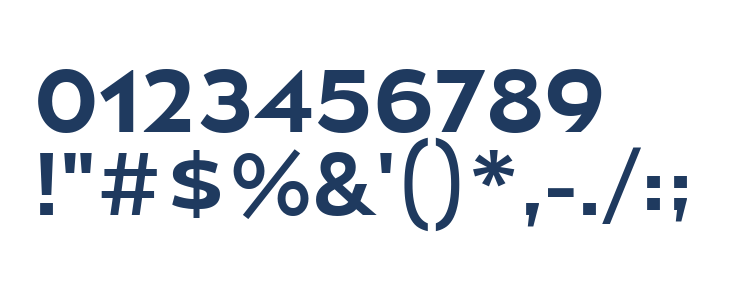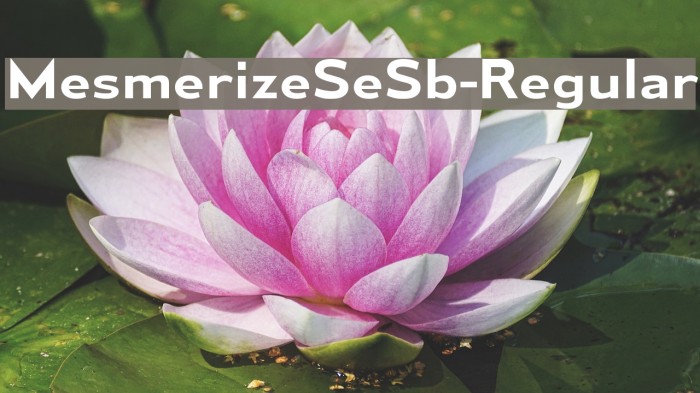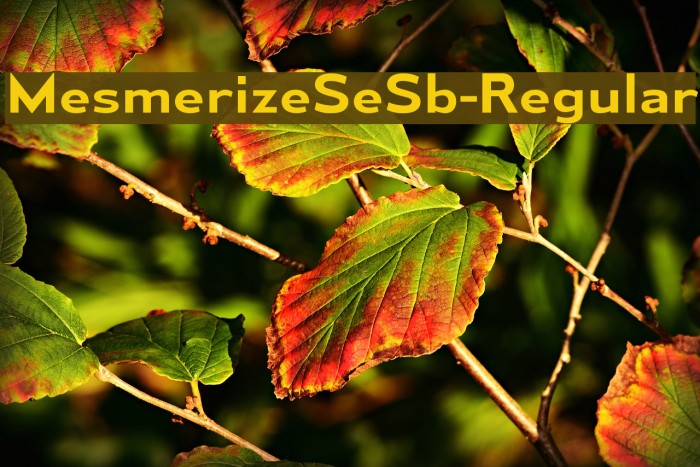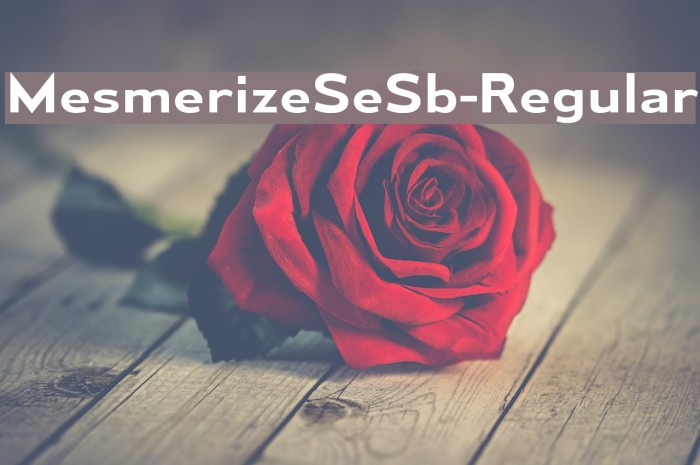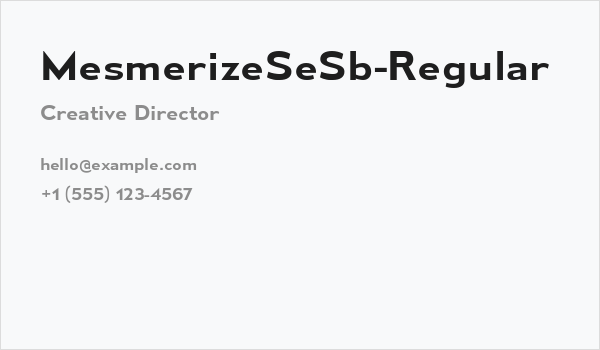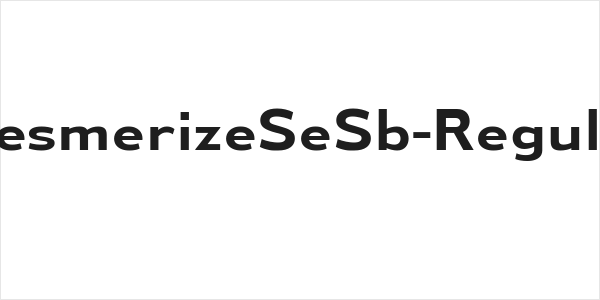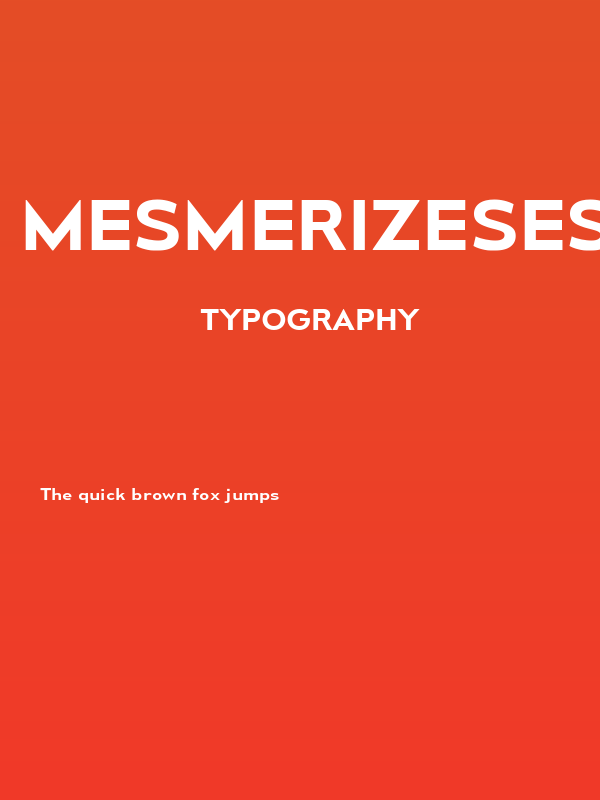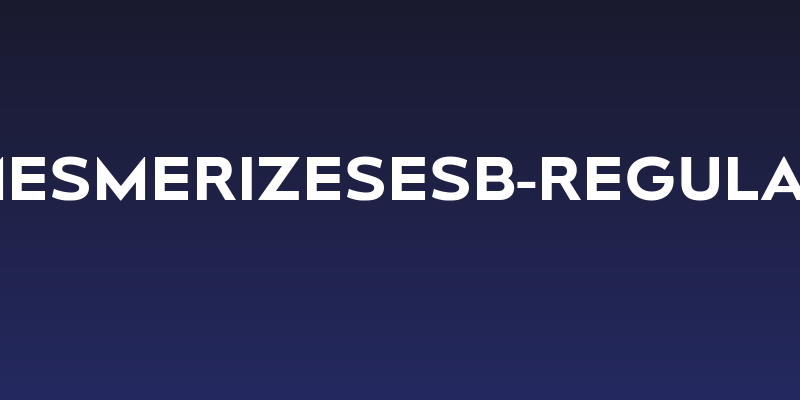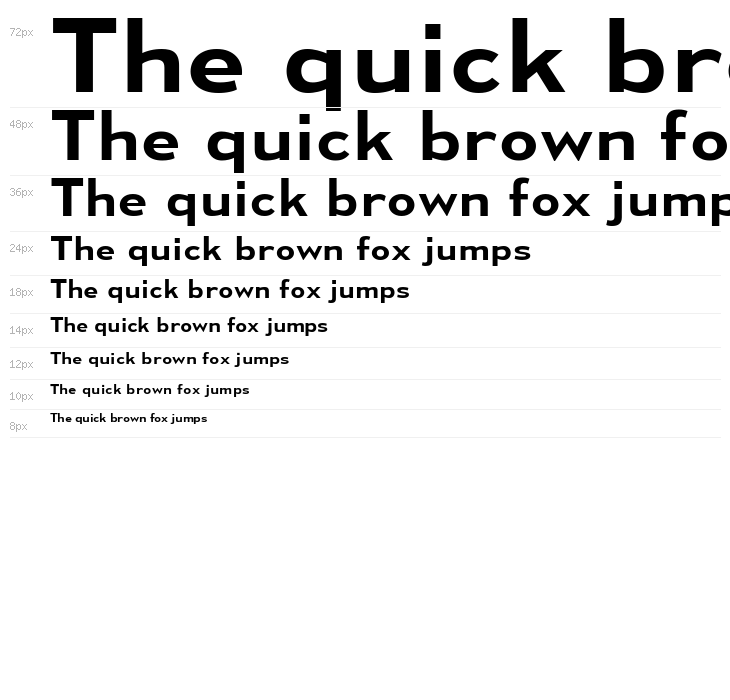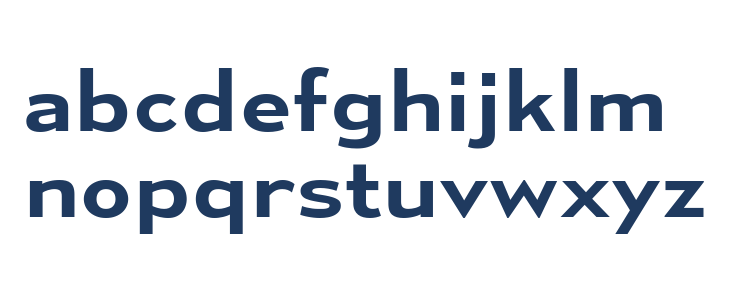
MesmerizeSeSb-Regular Font
MesmerizeSeSb-Regular Description
This font features a clean and modern sans-serif design with a geometric structure. The characters are bold and well-defined, offering excellent readability. The uppercase letters are uniform in height, while the lowercase letters maintain a consistent baseline with slight variations in ascender and descender lengths. The numerals are proportional and align well with the overall style. Special characters are distinct and maintain the font's cohesive look. The design is versatile, making it suitable for a wide range of applications.
| Use Case | Headlines, Logos, Web design |
| Proposed Projects | Ideal for branding, advertising, web design, and editorial projects where clarity and modernity are key. |